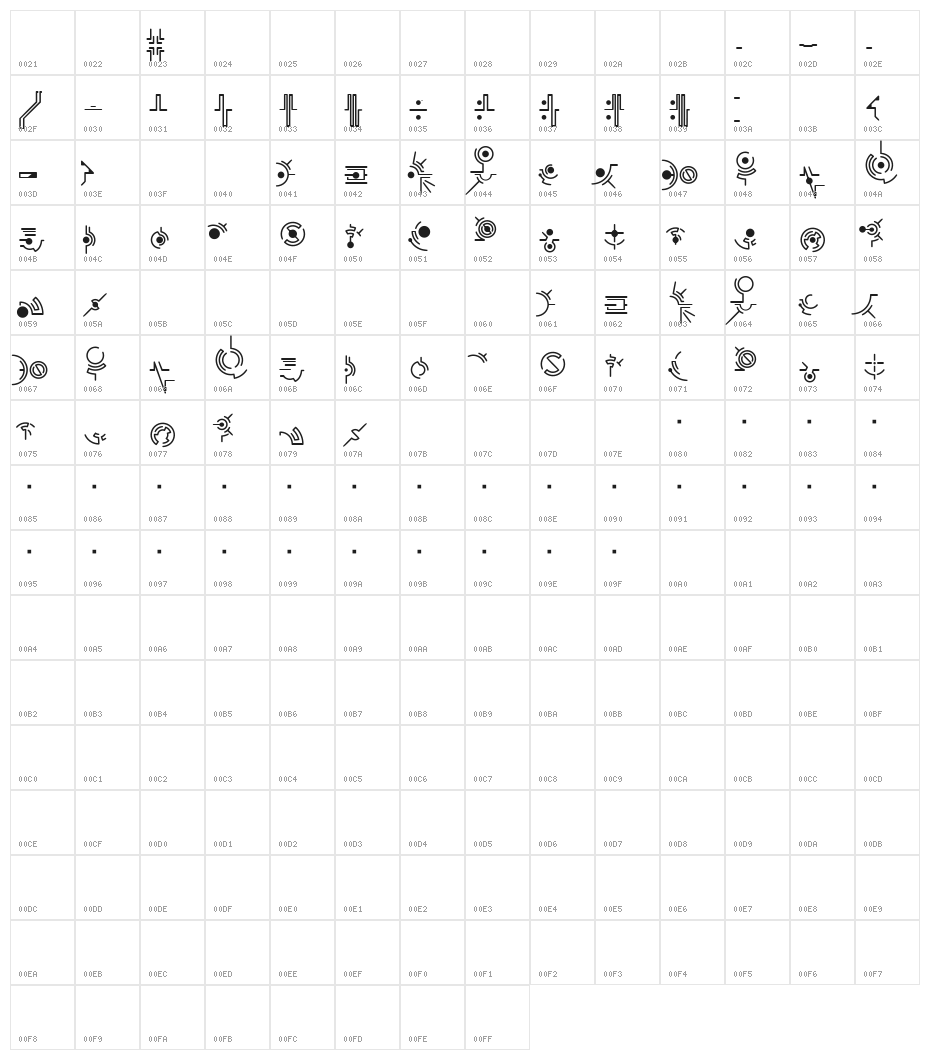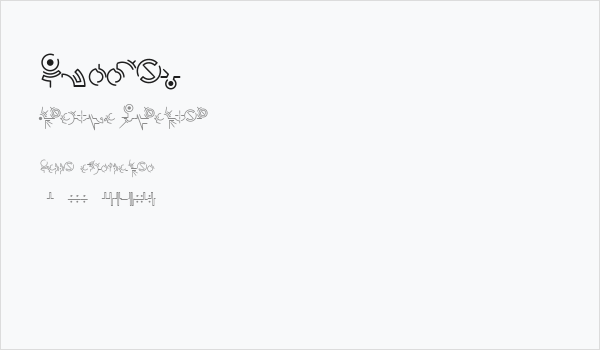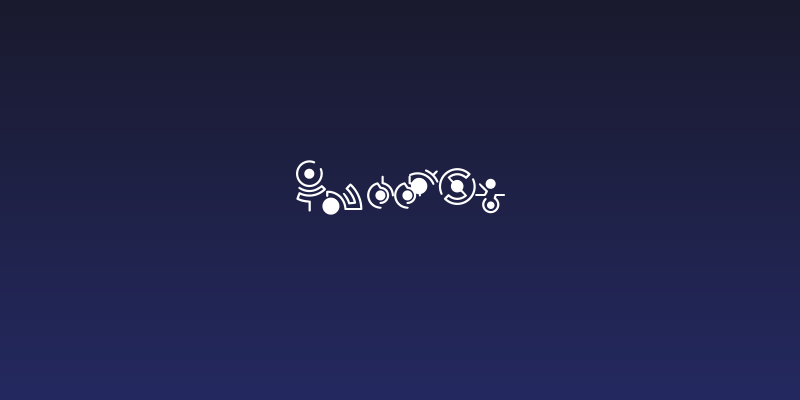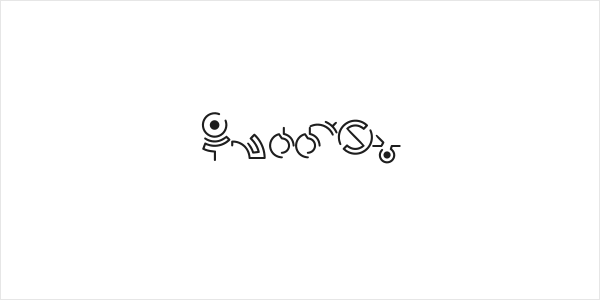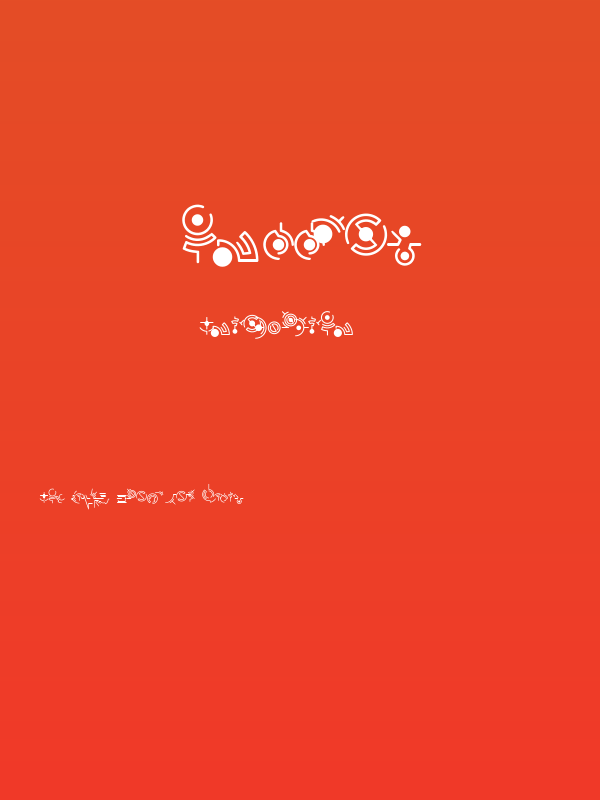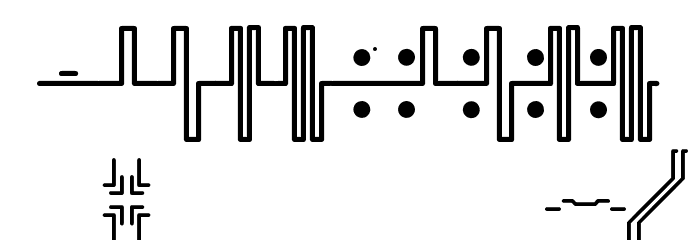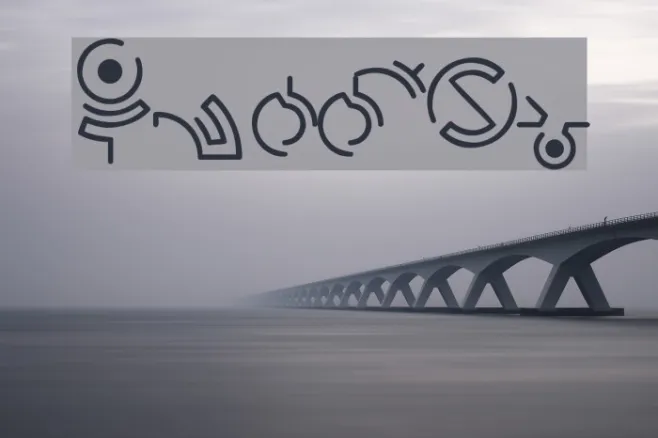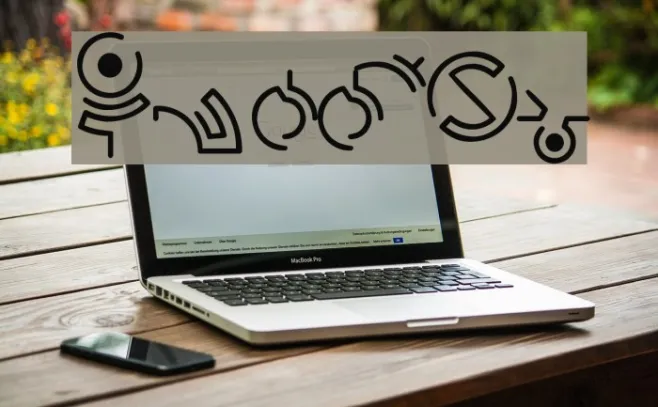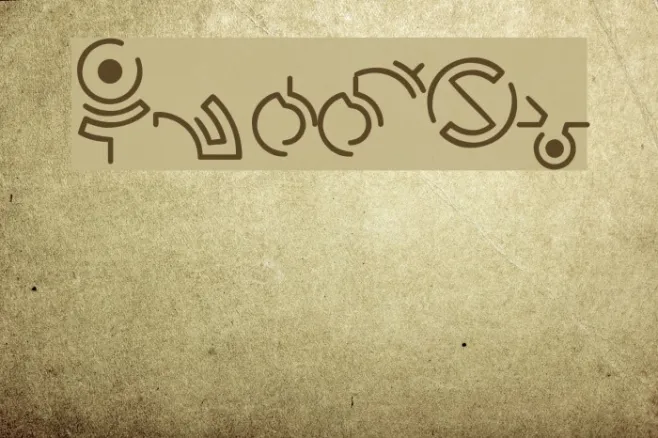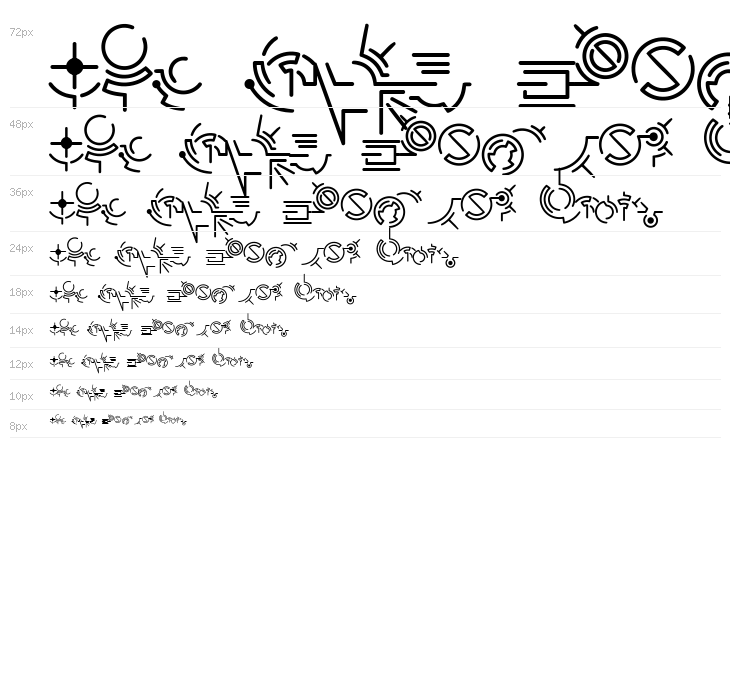
Hymmnos Font
Hymmnos Description
This font features an intricate and abstract design, characterized by a series of geometric shapes and lines that form a unique and artistic script. The characters are composed of circles, dots, and intersecting lines, creating a futuristic and enigmatic appearance. The overall design is highly decorative and resembles a form of symbolic or alien script, making it stand out with its unconventional style. The font lacks traditional letterforms, instead offering a visually complex pattern that could be used for artistic or thematic purposes.
| Overall Style | Futuristic, Abstract |
| Use Case | Artistic designs, Thematic projects, Decorative elements |
| Proposed Projects | Ideal for sci-fi themed projects, artistic designs, or as a decorative element in graphic design work. |